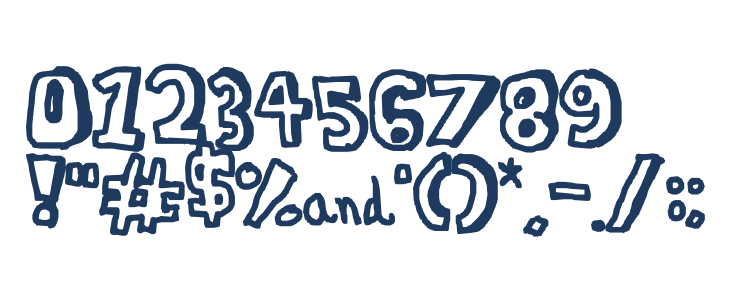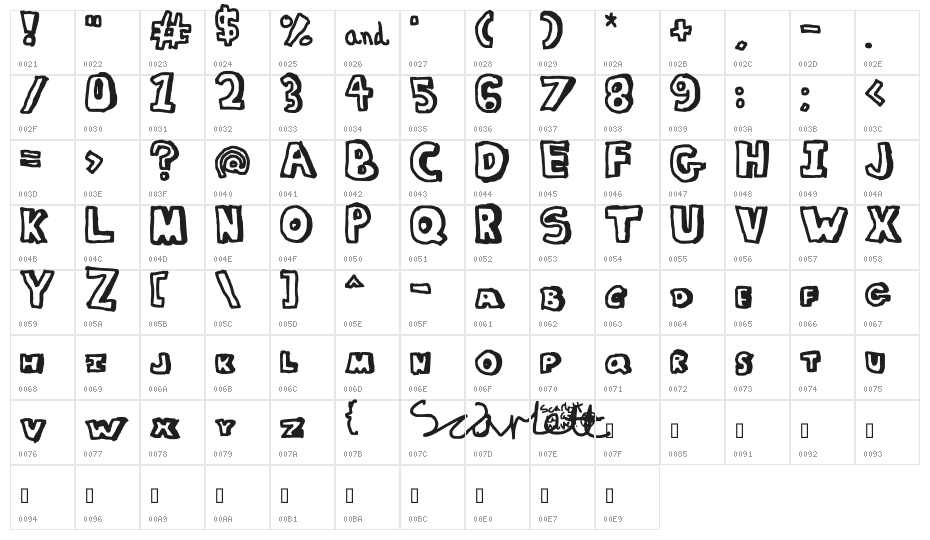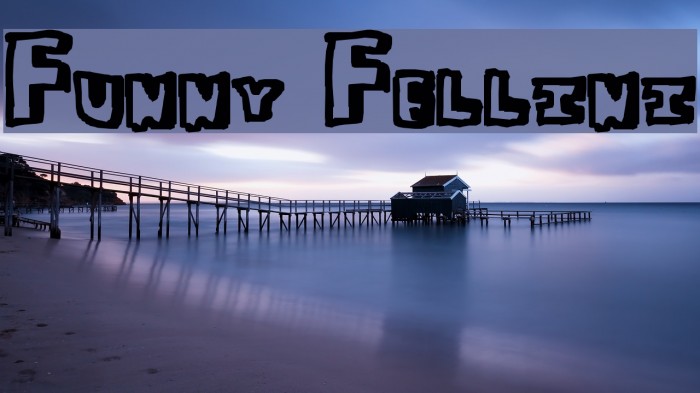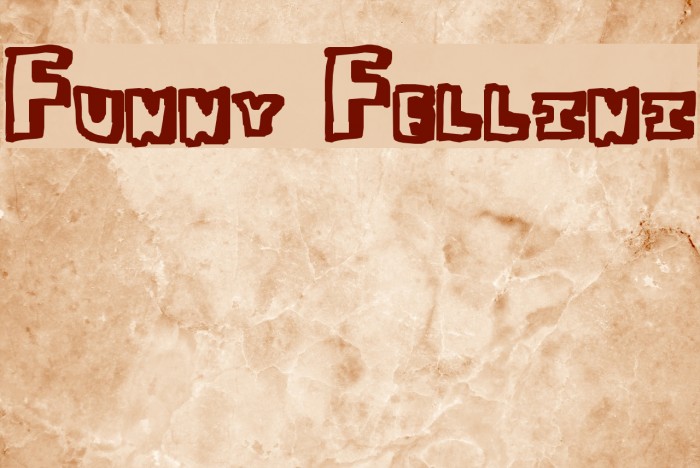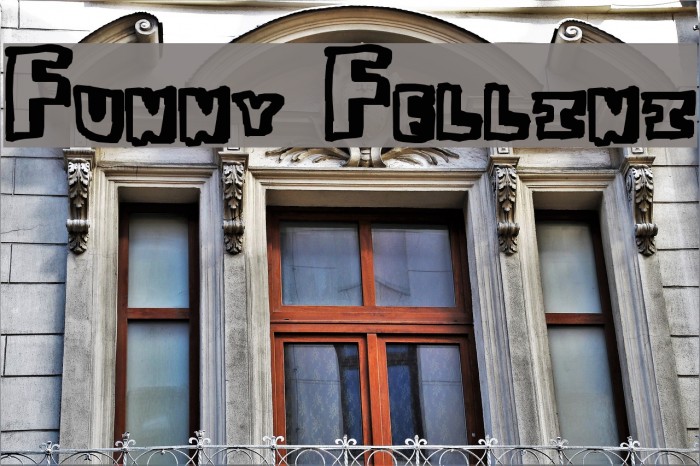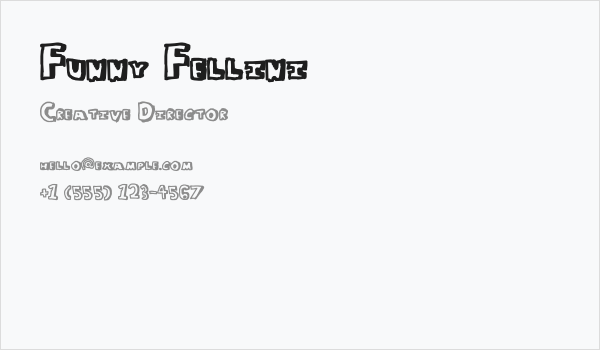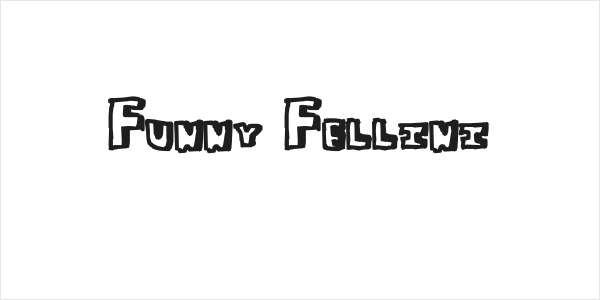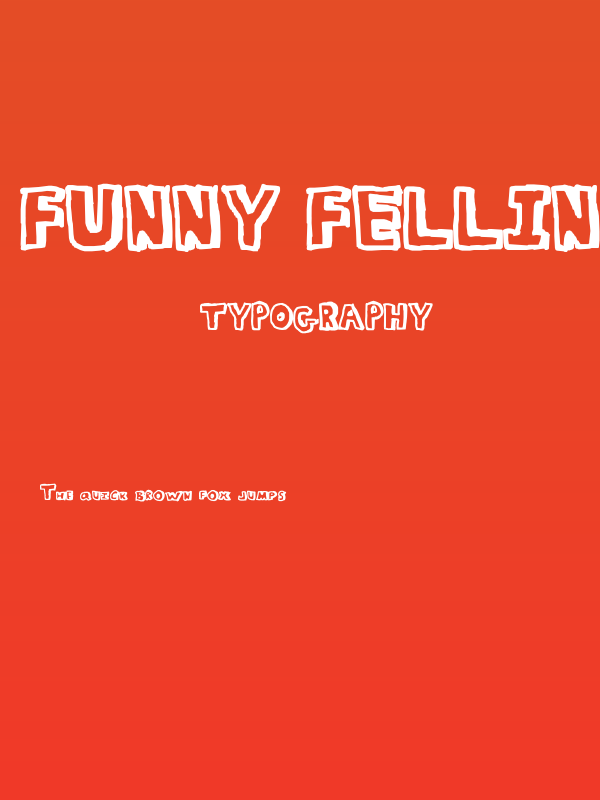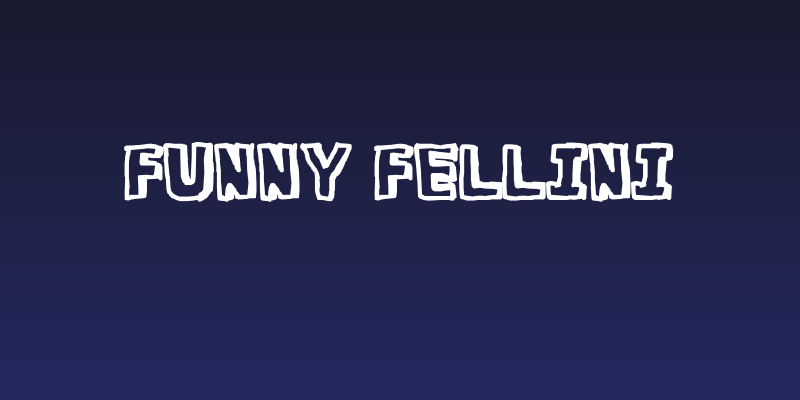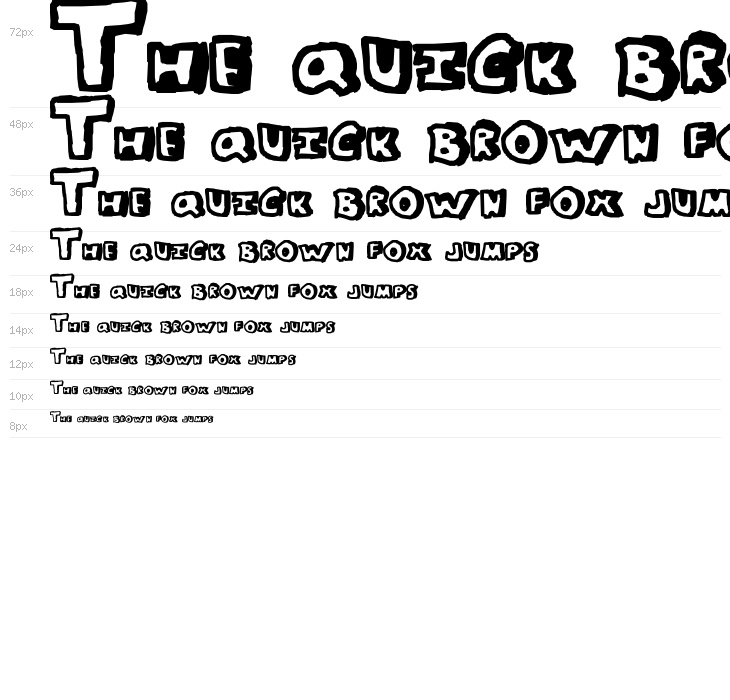
Funny Fellini Font
Funny Fellini Description
This playful and bold font features a hand-drawn, cartoonish style with thick, uneven strokes that give it a lively and energetic appearance. The characters are outlined with a bold black line, creating a strong contrast against the white interior. Each letter has a unique, slightly irregular shape, adding to the whimsical and informal feel. The numbers and special characters follow the same design, maintaining consistency throughout the set. This font is perfect for projects that require a fun and engaging look, such as children's books, comic strips, or playful branding.
| Overall Style | Playful, Cartoonish, Hand-drawn |
| Proposed Projects | Ideal for children's books, comic strips, playful branding, and casual invitations. |